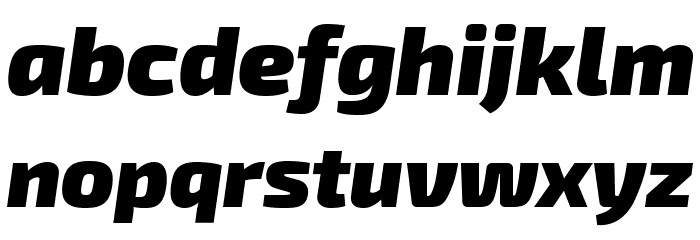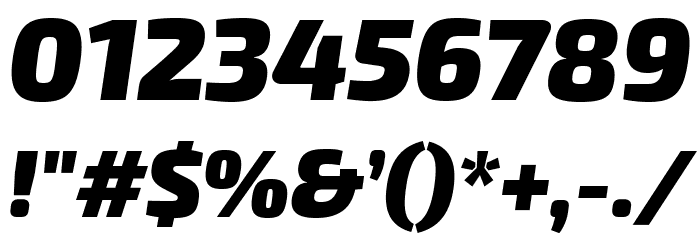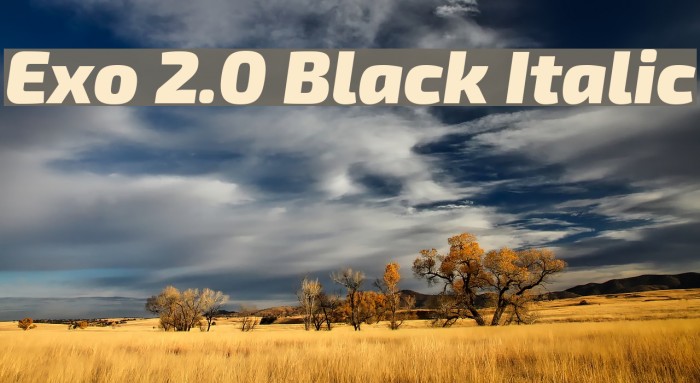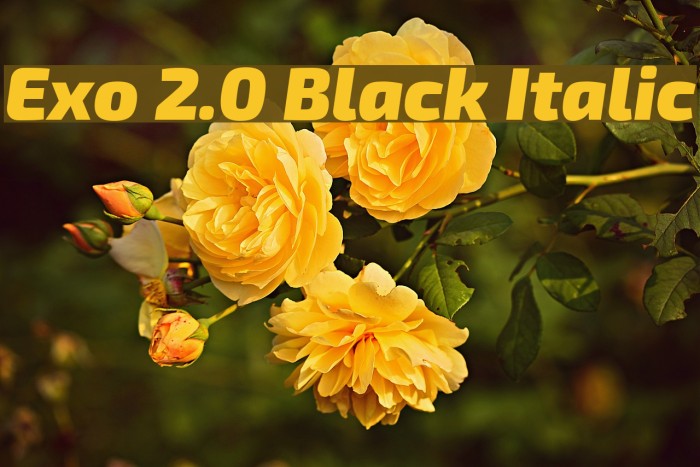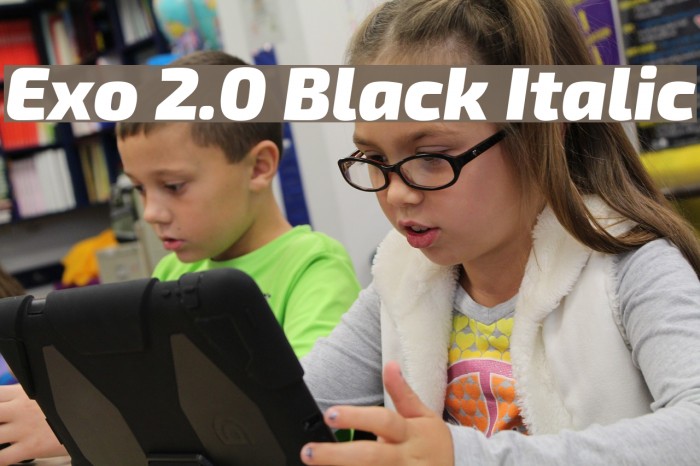
Exo 2.0 Black Italic Font
This font features a bold and dynamic style with a strong italic slant, giving it a sense of motion and energy. The characters are well-defined with a modern aesthetic, making it suitable for contemporary designs. The uppercase letters are robust and commanding, while the lowercase letters maintain a consistent flow. Numerals are clear and distinct, ensuring readability. Special characters are designed to match the overall boldness and style, making them stand out effectively. The font's design is versatile, allowing it to be used in various creative projects.
A bold, italic font with a modern and dynamic style.
- Proposed Projects: Ideal for branding, advertising, headlines, and digital media projects that require a strong visual impact.
- Use Case: Headlines, Logos, Branding